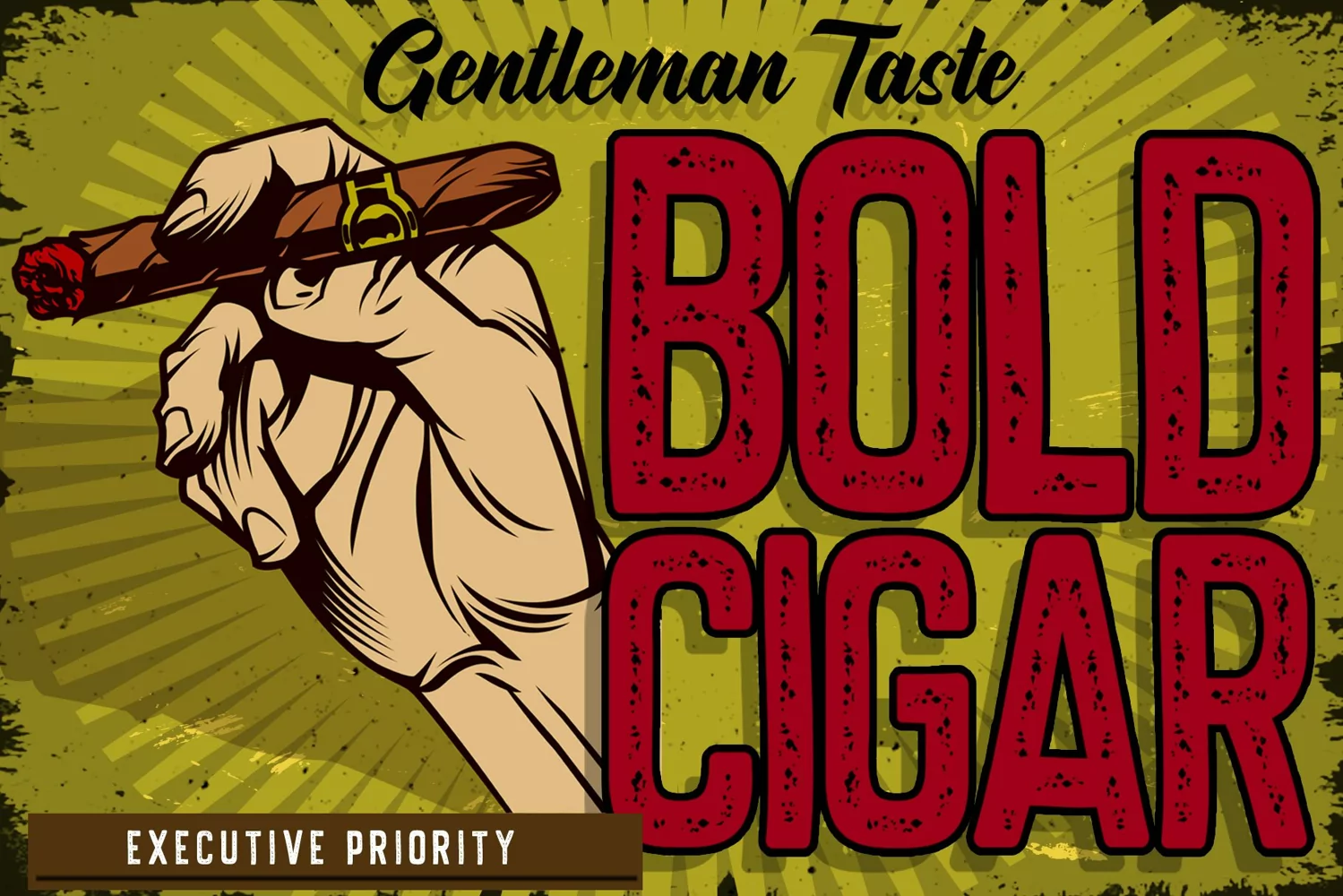
Rocketlers
**Rocketlers Font**
This pair was inspired by the retro motorbike poster design that i saw on some coffee shop, It was crafted by hand specially to add natural handmade feeling in its brand identity than i make it clean with pentool.
Rocketler font has 199 character set included
Rocketler Font is very good looking in logo, labels, product packaging, invitations, advertising and others.